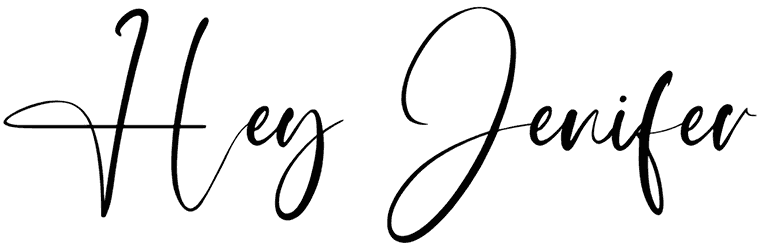
Hey Jenifer Font
The Hey Jenifer font is a calligraphy, script font that has a casual appearance. This postcard font may be applied to a wide variety of projects, such as logos, blog entries, poster designs, and many other things.
This difficult-to-read, stylish font is a part of our extensive collection; if you want to add a dash of life and happiness to your projects, this is the right resource for you to use.